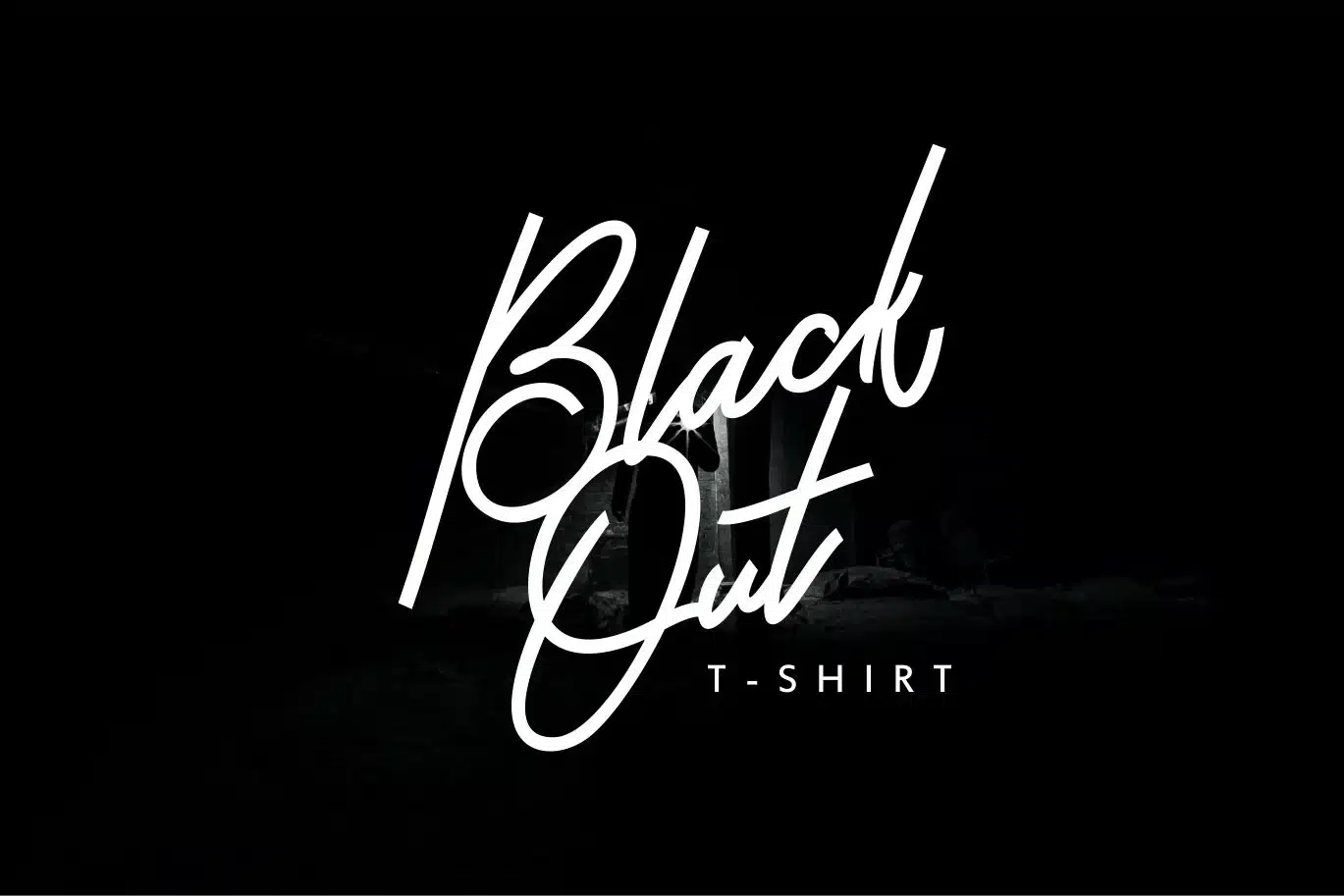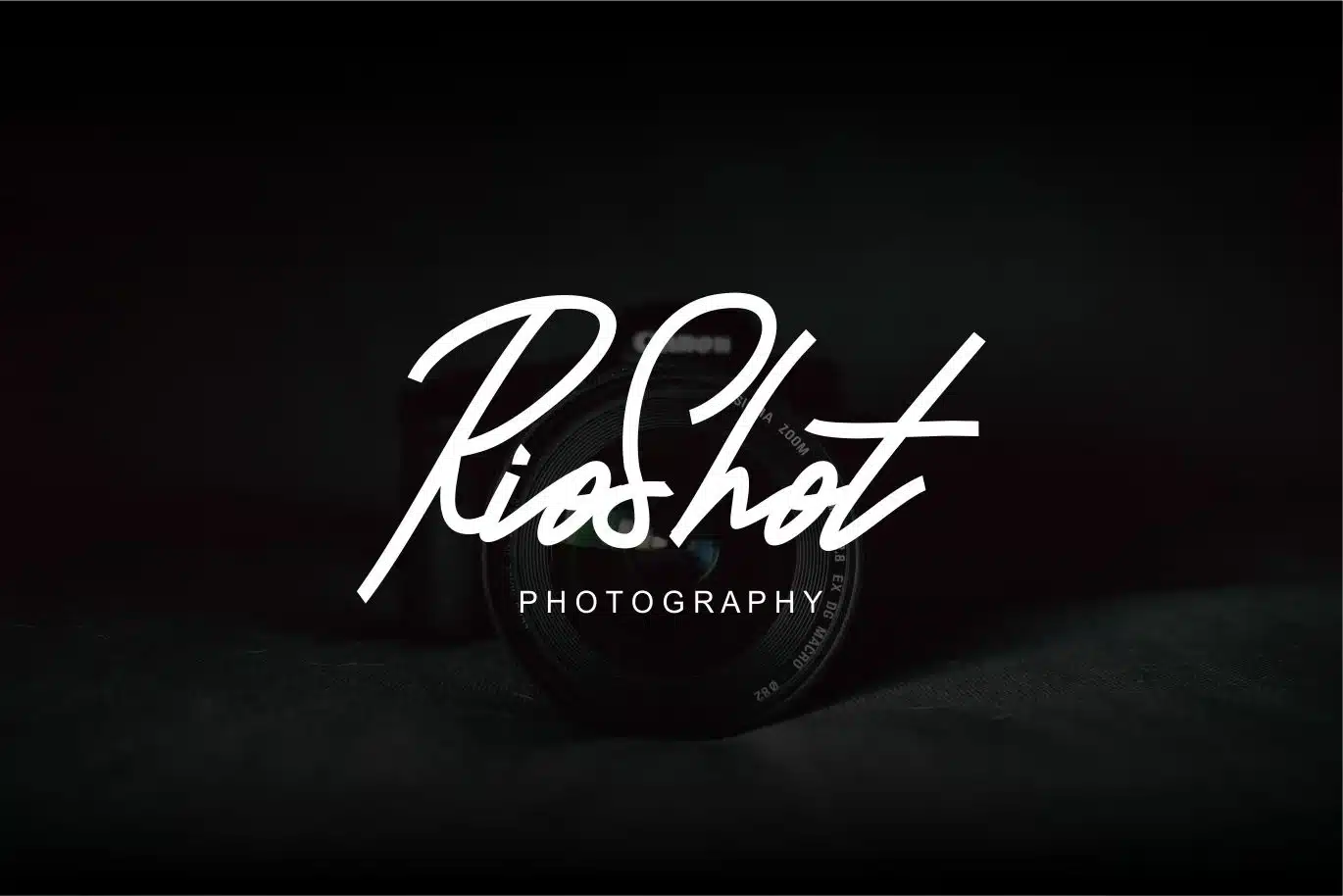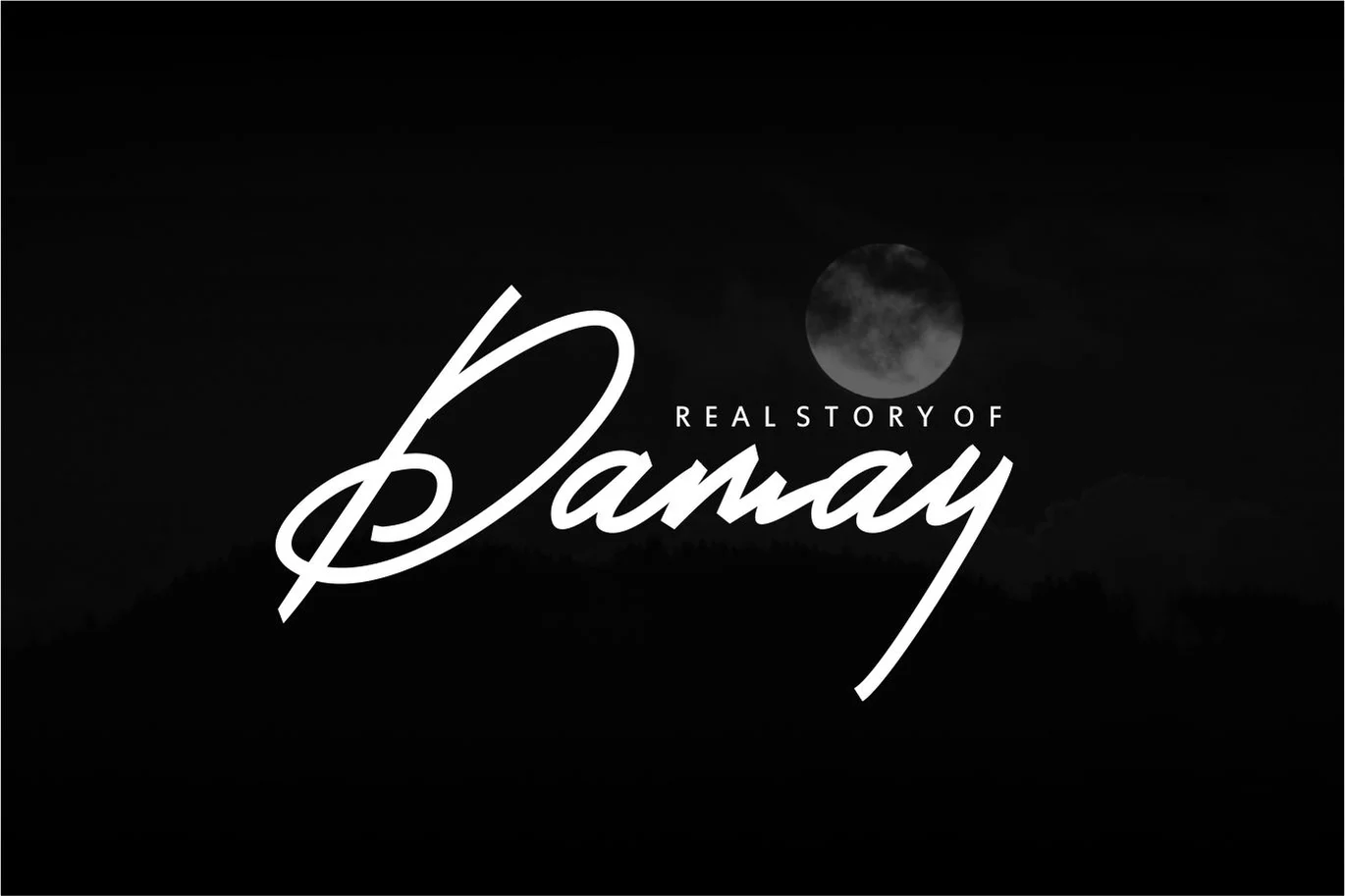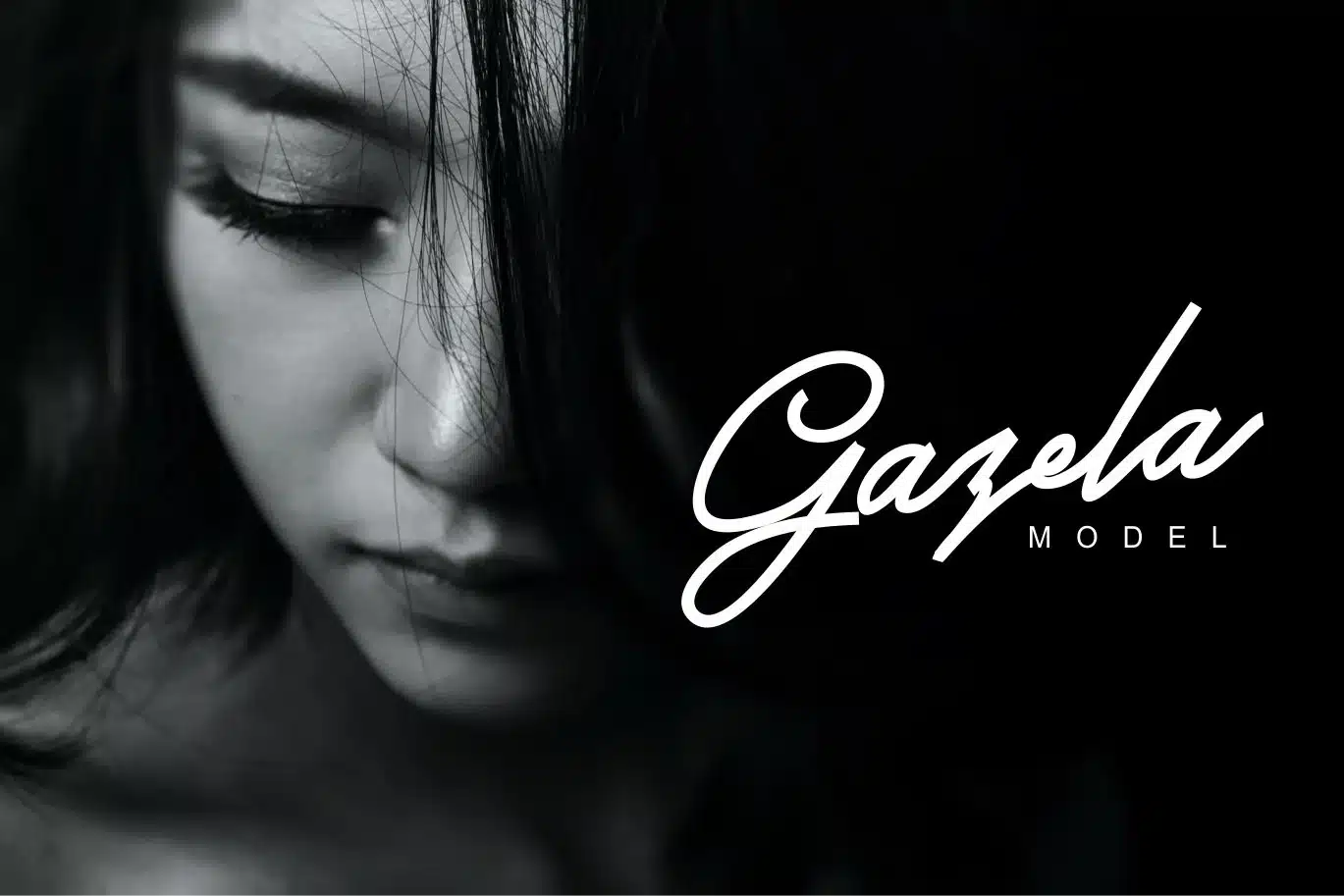
Brand Hole | Handwritten Signature Font
Brand Hole | Handwritten Signature Font with a calligraphy style, So beautiful on invitation like greeting cards, branding materials, business cards, quotes, posters, and more!
- Hundred of glyphs
- Alternates and Ligatures
- Punctional
- Fonts include Multilingual Support